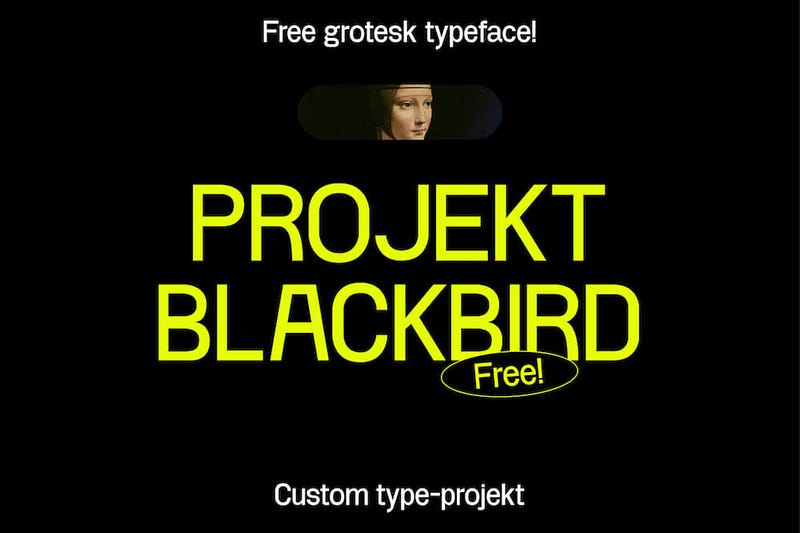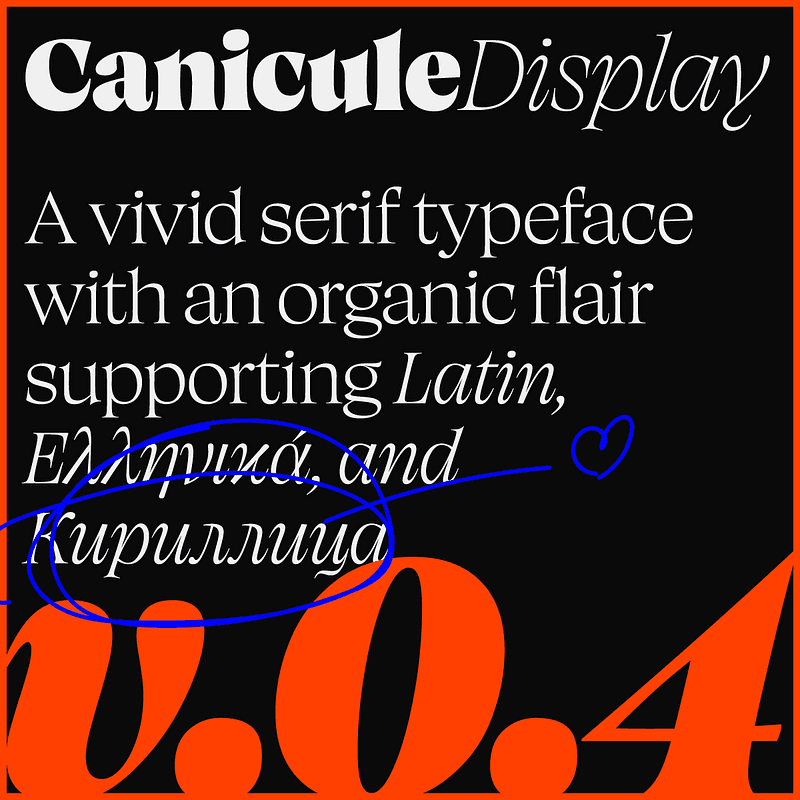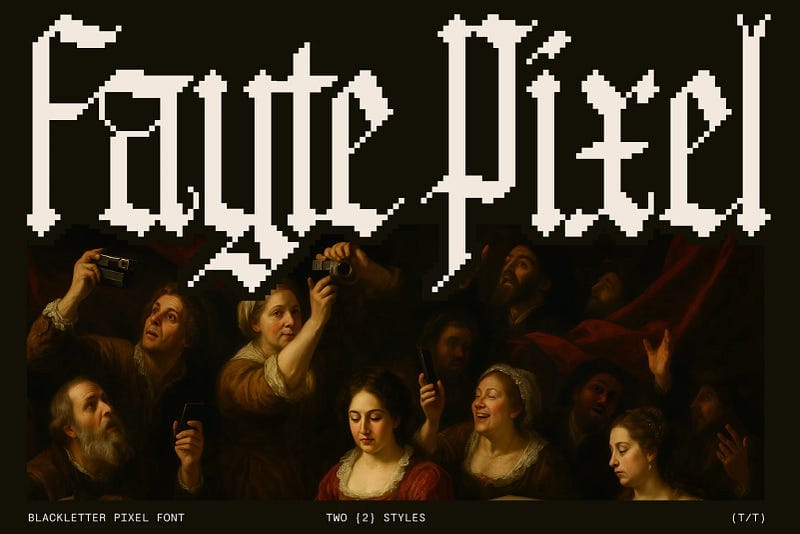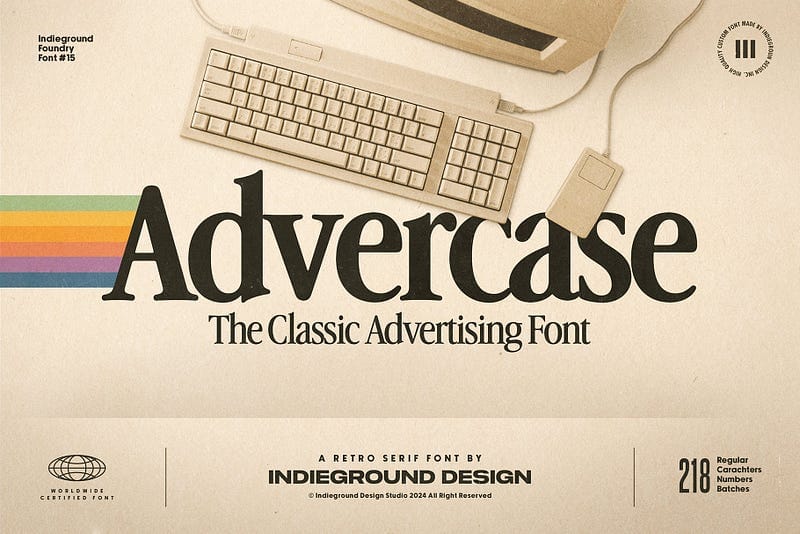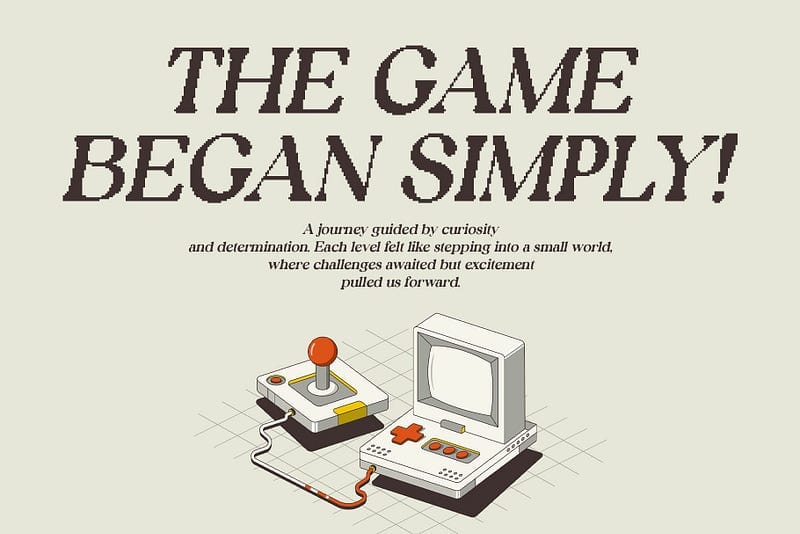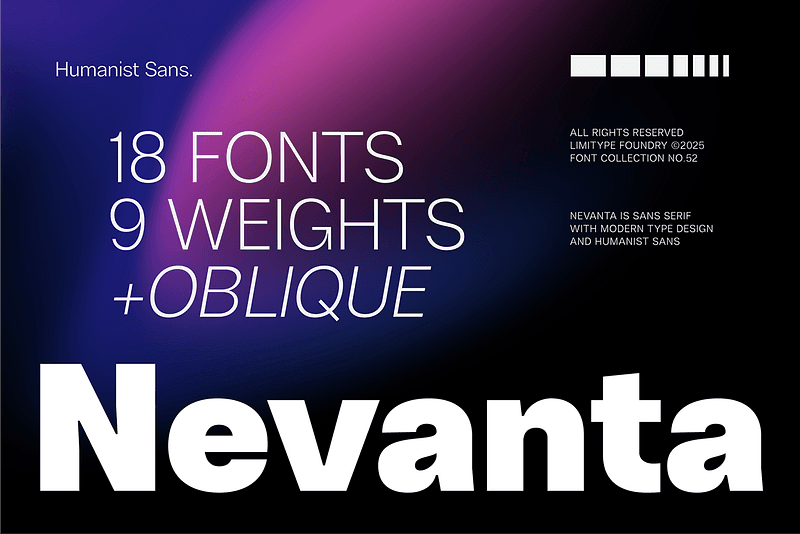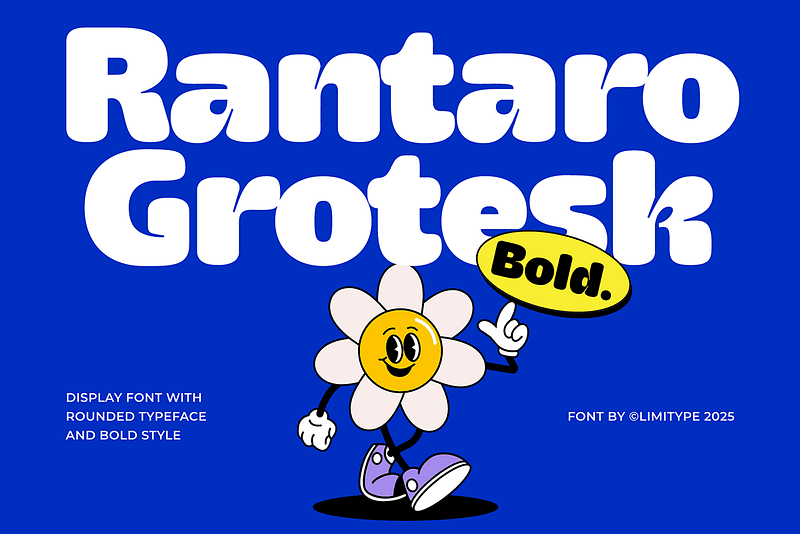
30 Must-Have Free Trendy Fonts for Designers in 2026
Choosing the right font can completely shift the mood of a design. As 2025 comes to a close and we look ahead to 2026, we’ve curated a fresh collection of 30 free fonts that bring character, elegance, and a touch of boldness to your projects.
1. Roena — Bold Font
Roena is a font with a bold, cheerful, and expressive style designed to bring a fun vibe to every design. Its unique, rounded, and daring letterforms make it perfect for kids’ event posters, food & beverage packaging, creative branding, social media content, and even titles or headers that need to stand out and feel playful.
2. Rebak Font
Rebak is a bold experimental display font built from confident geometric shapes, designed to stand out in posters, logos, and contemporary visual projects. Created by Bellinghamtype, it brings a modern, almost architectural feel to any layout, combining strong proportions with creative rhythm.
3. Rantaro Grotesk — Bold Font
Racistant is a modern display font featuring a smooth, rounded style that gives it a friendly yet professional look. Unique inktrap details on several characters add personality and make it stand out. Perfect for large, eye-catching titles or headlines that need to be bold, clear, and modern without feeling too rigid.
4. CS Brooklyn Font
Brooklyn Funky by Craft Supply Co is a lively handwritten display font that blends casual rhythm with playful energy. Designed for projects that need personality and warmth, it’s perfect for posters, packaging, invitations, or any creative work that calls for a handmade touch.
With its loose strokes and confident flow, Brooklyn Funky brings a sense of spontaneity to layouts without losing readability. It captures the charm of real handwriting while keeping a professional edge, making it suitable for both personal and commercial projects once licensed.
5. Calive Pixel Font
Calive Pixel by Craft Supply Co is a modern pixel-inspired display font that bridges retro aesthetics with a clean digital edge. Its precise grid-based structure brings a nostalgic feel of classic arcade typography, while maintaining sharp clarity for contemporary design projects.
Perfect for titles, posters, game interfaces, and creative branding, Calive Pixel adds a playful yet structured rhythm to your visuals. Each character is crafted to balance simplicity and impact, giving designers the flexibility to experiment with both minimalist and expressive layouts.
The demo version is free for personal use, while the full commercial license, available from Craft Supply Co, includes the complete glyph set and extended design options.
6. Canicule Display
Canicule Display is a vivid serif typeface shaped by the warmth and fluidity of the Mediterranean spirit. Designed by Kostas Bartsokas, it carries an organic rhythm that recalls the movement of the pen, where soft curves and expressive serifs meet refined contrast.
Balancing elegance and vitality, Canicule Display evolves beautifully across its 18 styles, from Thin to Black, each with matching italics. The lighter weights feel airy and calligraphic, while the heavier cuts grow bold and sculptural, almost turning the serifs into visual motifs.
Supporting Latin, Greek, and Cyrillic scripts, Canicule Display is ideal for editorial design, branding, and high-impact typographic compositions that seek sophistication with a distinctly human touch.
7. Sense Font
Sense Font is the debut release from Sense Design Lab, a contemporary type studio based on collaboration and openness within the design community. The font reflects the studio’s belief in clarity, balance, and thoughtful geometry, offering a refined sans-serif form built for modern branding and editorial use.
Developed through multiple rounds of testing and refinement, Sense Font was crafted primarily for titles and display applications, balancing precision with a smooth, human touch. Its rounded structure and subtle contrast give it a sense of calm confidence, suitable for both digital and print environments.
Upon its final release, Sense Font will be made freely available for both personal and commercial use, continuing the studio’s mission to encourage creative exchange and accessible design.
.
8. BRETTALINE Font
Marjorie Variable Font Family is a graceful serif typeface crafted with reading in mind. Designed for books, editorials, and long-form storytelling, it balances clarity and beauty in every line, offering a seamless reading experience that feels both timeless and inviting.
The font takes its name from a family story that connects generations, honoring the memory of Marjorie, the designer’s great-grandmother. That personal touch carries into the design itself — each curve and serif feels considered, carrying a quiet sense of tradition and care.
With its refined contrast and soft rhythm, Marjorie shines in text-heavy layouts, from novels and essays to magazines and digital publications. It’s a typeface that values readability without losing its soul — an elegant companion for stories worth remembering.
.
9. Ankish
Ankish is a bold futuristic sans-serif typeface defined by precision, speed, and modern geometry. Designed by Andrei Salagean, it combines sharp monoline strokes with subtle humanist touches, creating a balance between industrial strength and refined detail.
Its compact proportions and squared forms evoke a sense of engineered efficiency, while the softer corners and distinctive letter cuts give it attitude and motion. Perfect for high-impact visuals, Ankish excels in sci-fi titles, posters, automotive branding, and tech-driven identities that demand clarity and presence.
Both assertive and carefully crafted, Ankish delivers the kind of bold modernism that feels fast even when standing still.
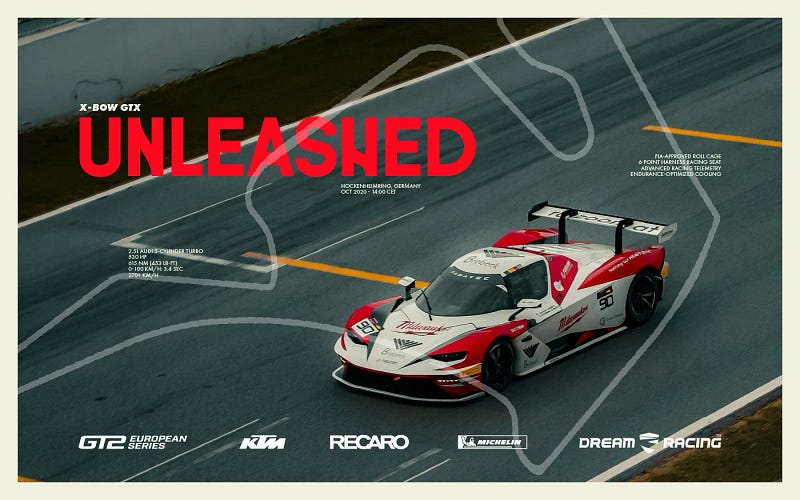
.
10. Nevanta — Sans Serif Font
Nevanta is a modern sans serif font with 18 styles (9 weights + Oblique), designed for professional, clean, and versatile typography. With precise geometric proportions and excellent readability, it is ideal for branding, websites, editorials, posters, and corporate identity. Multilingual support ensures flexibility, making it a complete typeface solution for both creative and professional projects.
.
11. Norelli Font
Norelli is a refined modern serif typeface from VPCreativeShop that blends elegance with contemporary precision. Its sleek letterforms feature graceful contrasts between thick and thin strokes, making it a perfect fit for branding, editorial headlines, and high-end packaging.
The typeface carries a timeless sophistication that feels both classic and fresh, ideal for designers looking to add a polished, confident tone to their visuals. While the demo version is free for personal use, the full commercial version unlocks additional refinements and extended character sets, available through Gumroad and Creative Market.
Norelli is designed for creatives who appreciate the balance between tradition and modernity , a font that quietly commands attention through its crafted details and subtle charm.
.
12. THUNDER
THUNDER is a condensed typeface with two contrast and 36 styles, also available as a variable typeface.
.
13. Modernist Typeface
Sk-Modernist is a minimalist and clean typeface which eschews complicated forms. The aim of the typeface was to create an amalgamation of a modern Grotesk, like Helvetica, with a simpler geometric style, like Avant Garde.
Sk-Modernist has been designed specifically for the digital age, each letterform being optically adjusted using a mathematical system rather than the traditional typographers eye. This approach has resulted in a typeface that displays exceptionally well in digital mediums.
The font is the first to be released by Sean Kane Design and is currently available in Light, Regular, Bold and Monospaced weights. Features include multi language support, Extended Latin and Vietnamese character sets, ligatures and stylistic alternatives.
.
14. LT Serif — Modern Serif Font
LT Serif presents a modern, minimalist, and elegantly crafted serif font, featuring distinctive alternatives for select capital letters with stems. This versatile typeface is inclusive of uppercase, lowercase, symbols, alternates, numbers, and supports multilingual characters. LT Serif lends itself perfectly to projects demanding sophistication and contemporary flair, such as magazine headlines, book layouts, banners, posters, logos, and more.
.
15. Fayte Pixel
Fayte Pixel is a dramatic, high-contrast typeface that blends gothic elegance with a digital, pixelated edge. Its sharp lines, geometric precision, and subtle texture create a sense of depth and shadow, giving it a sculptural presence on screen. The result is a font that feels both ancient and futuristic, perfect for artistic titles, fantasy posters, game interfaces, or metal album covers.
Inspired by the chiaroscuro technique in art, Fayte Pixel captures the interplay between light and darkness, volume and void. It evokes mystery, intensity, and bold visual storytelling — ideal for designers seeking a typeface with strong character and visual impact.
.
16. Gluf-Futuristic Font
Gluf is a futuristic display font crafted with bold precision and minimalist aesthetics. The name itself, short and memorable, reflects the essence of the font: clean, sharp, and forward-looking. Every curve and line in Gluf is designed to strike a balance between industrial strength and modern elegance, making it a versatile choice for a wide range of creative projects.
Whether you’re designing logos, posters, album covers, apparel, gaming titles, or tech-inspired branding, Gluf delivers a strong visual identity that instantly captures attention. Its bold all-caps style ensures readability even in large-scale designs, while its sleek geometry gives your work a contemporary and professional edge.
Perfect for branding, editorial layouts, motion graphics, UI design, and digital art, Gluf is more than just a font — it’s a creative tool that embodies futuristic vision and minimal sophistication. Add Gluf to your design toolkit and let your projects stand out with a modern, powerful personality.
.
17. Ruska Display
Ruska was a font created for study and will be made available completely free for everyone. This is a display font, with rounded corners and tons of inktraps. These are letters that make you want to eat them! It’s perfect for expressive brands looking to highlight their products through titles full of personality. This is the perfect flavor for your project.
.
18. Riosark Font
RIOSARK is a modern and futuristic sans-serif typeface designed with precision and versatility. Its clean, strong, and minimalistic design makes it ideal for contemporary projects that demand attention and clarity. With three distinct weights — Bold, Regular, and Light — RIOSARK adapts seamlessly to diverse design needs, from bold headlines to subtle text elements.
.
19. Advercase
Advercase Font is a retro serif typeface that blends vintage charm with a contemporary touch. Designed by the Indieground Team, it’s perfect for projects needing a nostalgic yet elegant vibe, from vintage-inspired ads to modern creative designs. Its timeless style makes it a versatile choice for adding character to any project.
.
20. N27
N27 is a geometric grotesk typeface that feels both industrial and elegant. Its clean structure and subtle detailing create a contemporary rhythm that fits perfectly across digital and print design. Built with precision, N27 delivers sharp legibility at every size while maintaining a distinctive visual tone that stands out without shouting.
It carries the attitude of modern architecture — minimal, balanced, and bold. Each weight feels purposeful, from light and airy to heavy and assertive. N27 is ideal for designers seeking a typeface that embodies clarity, confidence, and a touch of futuristic sophistication.
.
21. Neutral Face
A contemporary typeface inspired by Swiss-style, excellent for designs that display professionalism and modernity. It comes in regular and bold weights, with support of Latin and Cyrillic alphabet. This font is ideal for magazines, posters, logos, branding, layout designs, and others.
.
22. Acma
Acma is an irreverent typeface with a powerful elegance. It is ultimately precise and subtle yet it remains flowy and temperamental. The design was inspired by the Japanese modernist aesthetic as well as the fashion world [past, present and future] for its unapologetic nature and opulence through the purity and the tension of its lines yet unconventional forms and rhythms.
The design of the lowercase “a”, gave the tone to the whole family, which quickly became Acma. Its luscious curves, wide alternates and deep contrast will embellish any design endeavour it takes on. Guaranteed. It is a highly contrasted, narrow sans serif, ranging from thin to black. Originally intended for editorial headlines, Acma can be use in a variety of purpose starting at 12 point.
.
23. Kyoto
PP Kyoto is a slab serif that naturally bridges tradition and modernity. With a solid structure, distinctive features, and expressive character, it was designed to stand out, especially in headlines. Its bold slabs contrast with soft, teardrop terminals, while prominent dots create a rhythmic flow, adding energy to the composition.
The design remained on the shelf for years, slowly maturing into its current form. It all began as a study of Japanese writing systems, an exploration of how a slab serif could visually connect with the Japanese writing systems. The result is a unique typeface, shaped by trial, error, and persistence, now brought fully to life.
.
24. Projekt Blackbird
Projekt Blackbird is a free sans serif font created by Leonit Gashi. This free font is perfect for headlining your web designs, posters or body copy.
.
25.Swiza
Swiza is a modern sans-serif typeface that blends Swiss precision with a quiet sense of elegance. It is clean, balanced, and crafted for designers who value clarity and timeless form. Every curve feels intentional, every proportion carefully tuned to achieve visual harmony across headlines, interfaces, and printed matter alike.
Its geometry is humanized with subtle warmth, giving Swiza both structure and personality. The result is a font that feels dependable yet refined — perfect for branding, editorial design, and digital experiences that call for understated confidence and effortless readability.
.
26. Overglow
Overglow Font was designed specifically for artworks with an 80s and 90s atmosphere, a perfect match for synthwave, vaporwave and aesthetic elements. Designed in collaboration with artist Alessandro Strickner aka the Overglow.
.
27. Modernist
Sk-Modernist is a minimalist and clean typeface which eschews complicated forms. The aim of the typeface was to create an amalgamation of a modern Grotesk, like Helvetica, with a simpler geometric style, like Avant Garde.
Created by Sean Kane Design, the font is currently available in Light, Regular, Bold and Monospaced weights. Features include multi language support, Extended Latin and Vietnamese character sets, ligatures and stylistic alternatives.
.
28. Basier
Basier is a timeless neo-grotesque typeface that captures the essence of modernist design. It feels clear, balanced, and effortlessly functional, yet refined enough to bring warmth and precision to any layout. Designed with Swiss-inspired geometry and subtle human touches, Basier achieves perfect visual neutrality without losing personality.
Its clean rhythm and even texture make it ideal for both digital interfaces and print systems. Whether used in bold headlines or refined body text, Basier conveys confidence through simplicity — an honest, versatile typeface built for clarity and modern elegance.
.
29. Simbatifa
Simbatifa a Handwritten Font that adds a elegant, versatile touch to everything from branding and social media to invitations and packaging.
.
30. Neiko Typeface
Neiko is a refined and modern sans-serif typeface created for designers who value clarity, balance, and sophistication. Its clean structure and carefully measured proportions make it ideal for a wide range of creative uses, from branding and packaging to editorial layouts and digital interfaces.
Available in three weights , Light, Regular, and Bold , Neiko gives designers flexibility to craft visual hierarchies that feel both confident and contemporary. The lighter styles offer an elegant minimalism for body text, while the bolder cuts bring strength and impact to headlines.
With its understated geometry and modern edge, Neiko captures the essence of timeless design translated into today’s visual language. It’s a perfect choice for those seeking simplicity with personality and a touch of finesse.